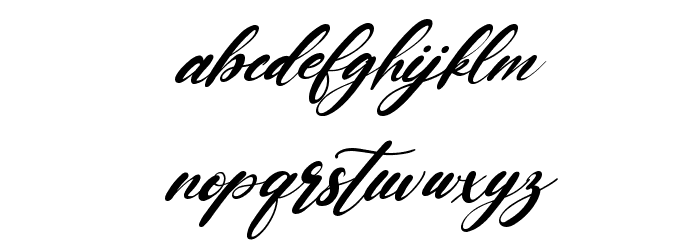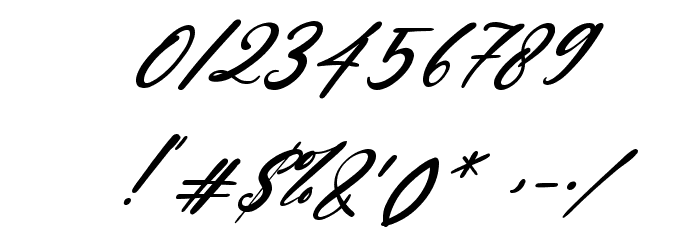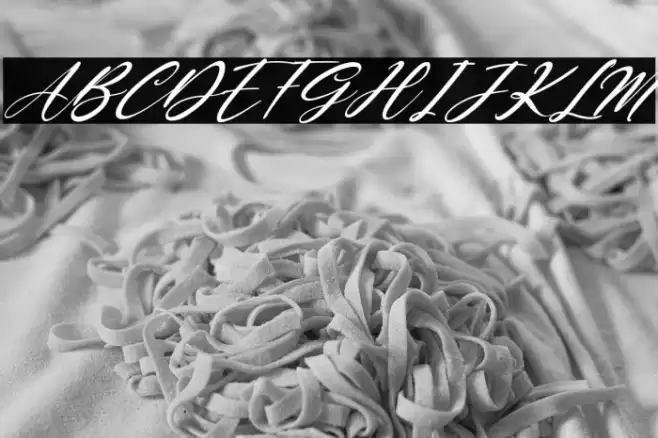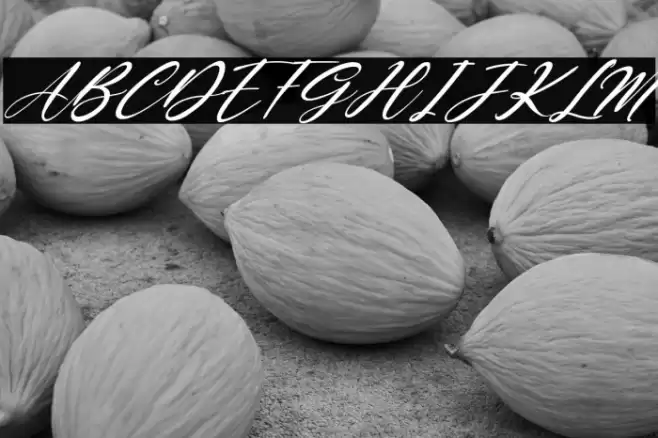
Baby Lovely Italic Font
This font exudes elegance and sophistication with its flowing, cursive style. The letters are beautifully crafted with smooth curves and delicate strokes, giving it a handwritten appearance. The uppercase letters are slightly more elaborate, featuring graceful loops and swashes that add a touch of flair. The lowercase letters maintain a consistent flow, enhancing readability while preserving the artistic essence. Numbers and special characters are designed to match the overall aesthetic, ensuring a cohesive look across all text elements. This font is ideal for projects that require a personal, elegant touch.
An elegant, cursive font with smooth, flowing strokes and a handwritten appearance.
- Proposed Projects: Ideal for wedding invitations, greeting cards, branding, and any project that requires a personal, elegant touch.
- Category: Script
- Overall Style: Elegant, Handwritten
- Use Case: Logos, Invitations, Greeting Cards